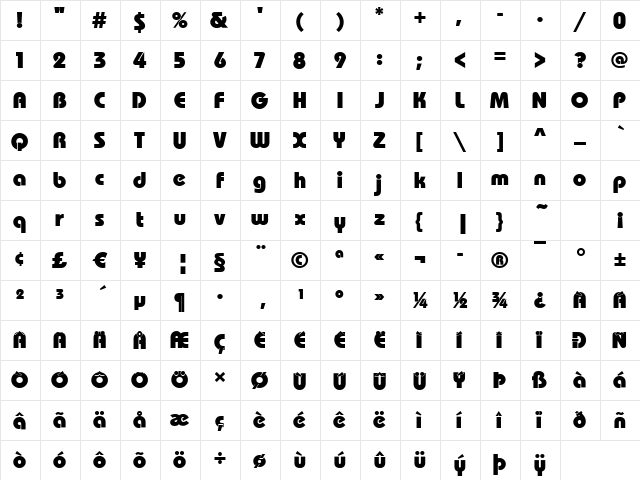
Dessau-Poster-Heavy Regular
Design Context for Dessau-Poster-Heavy Typeface
Dessau-Poster-Heavy is a composed and adaptable typeface that performs quietly and consistently across a wide range of design contexts.